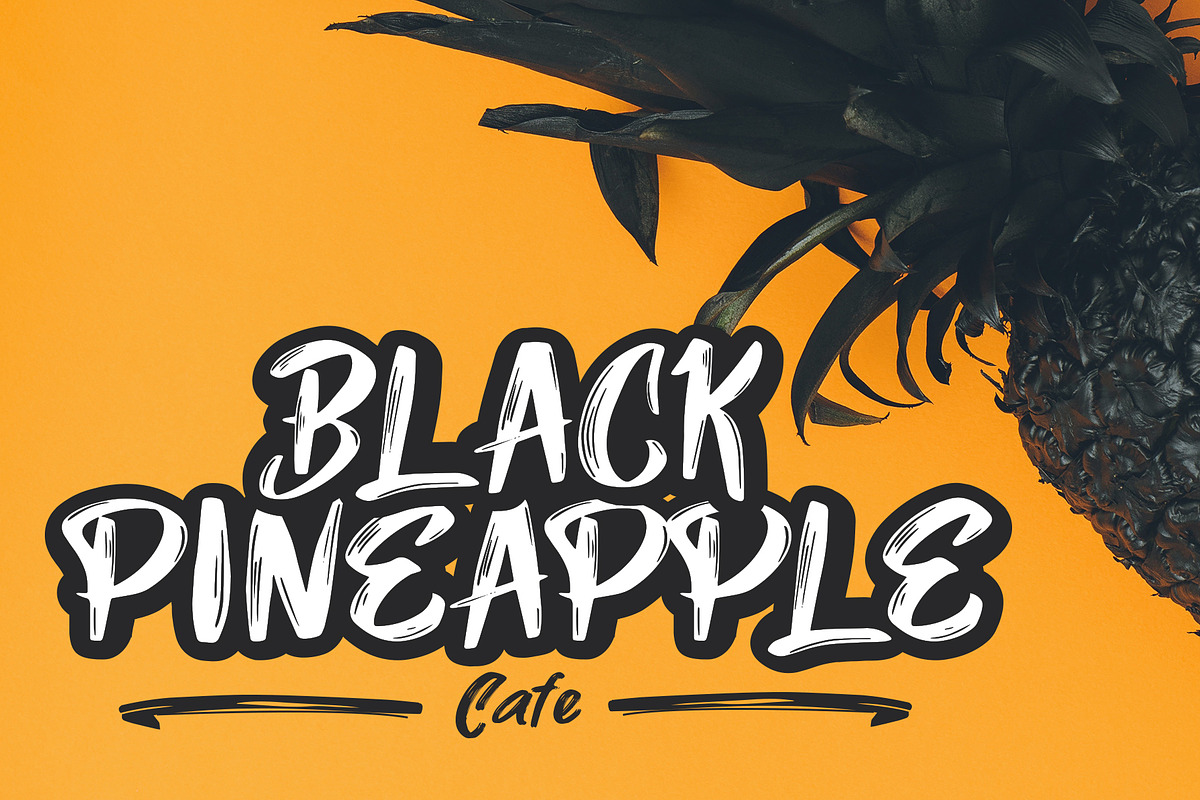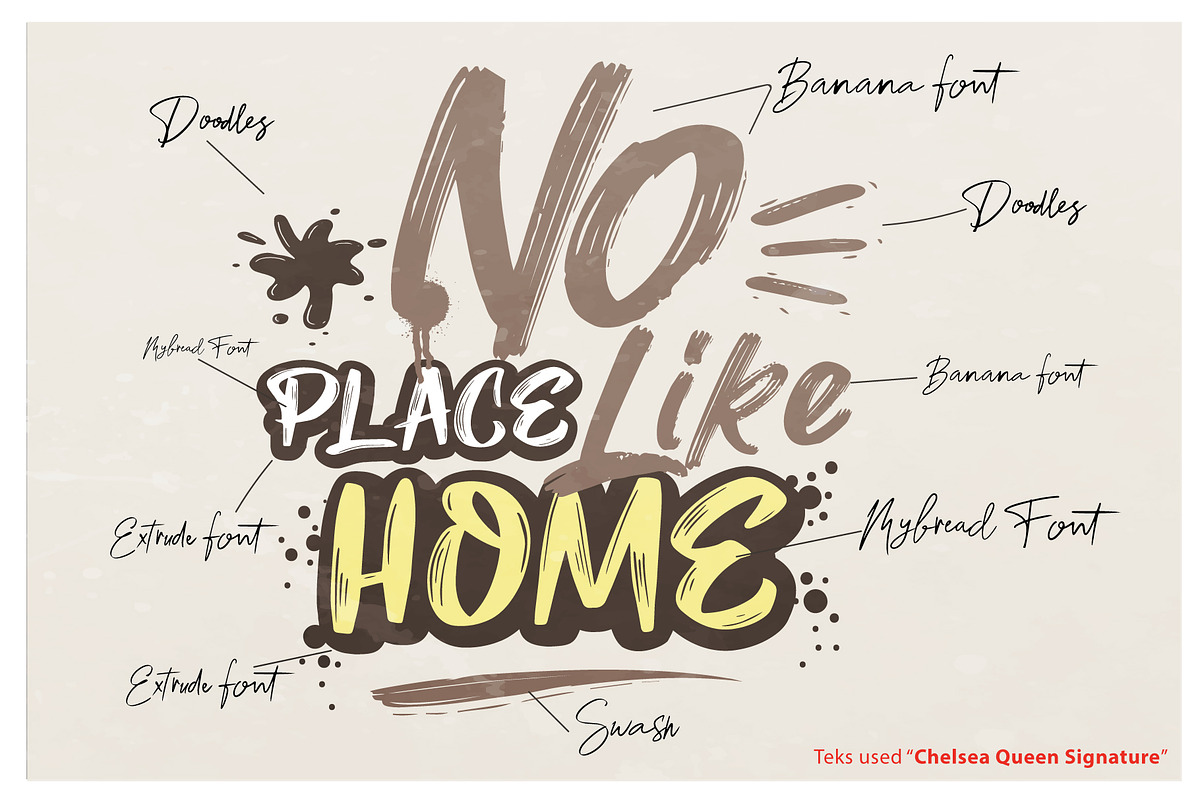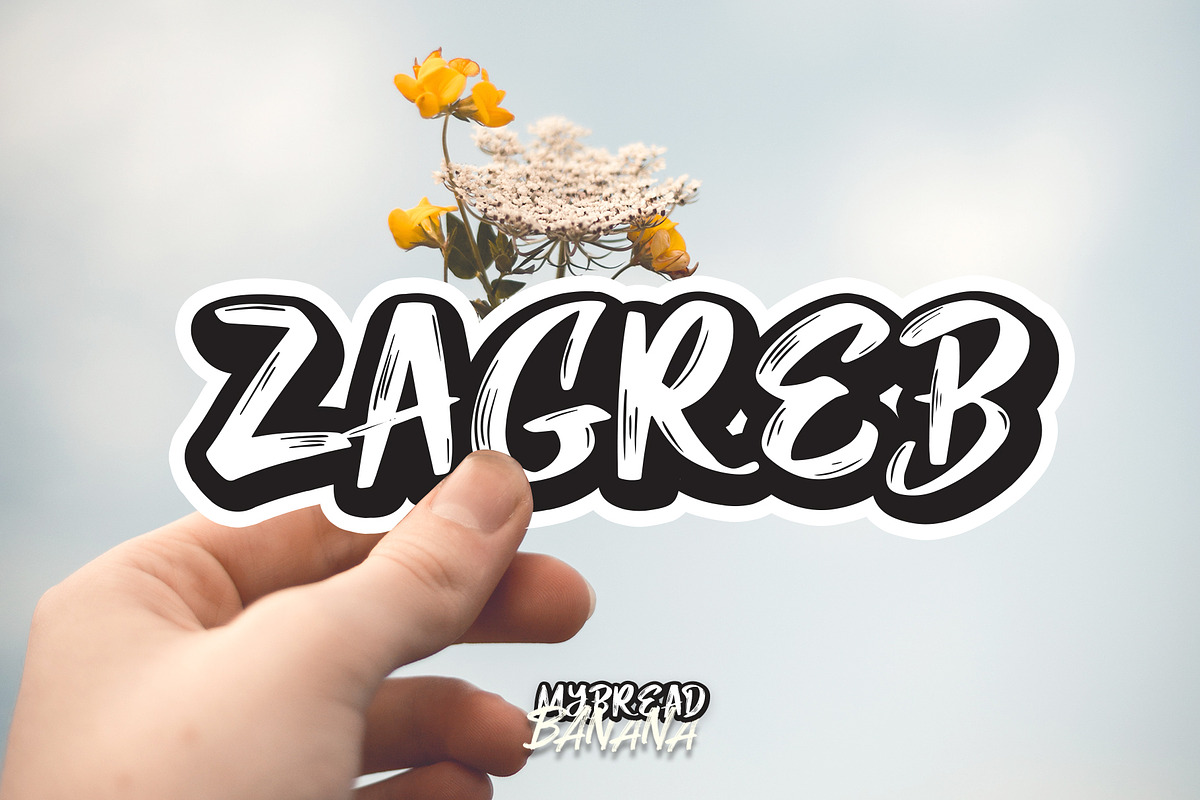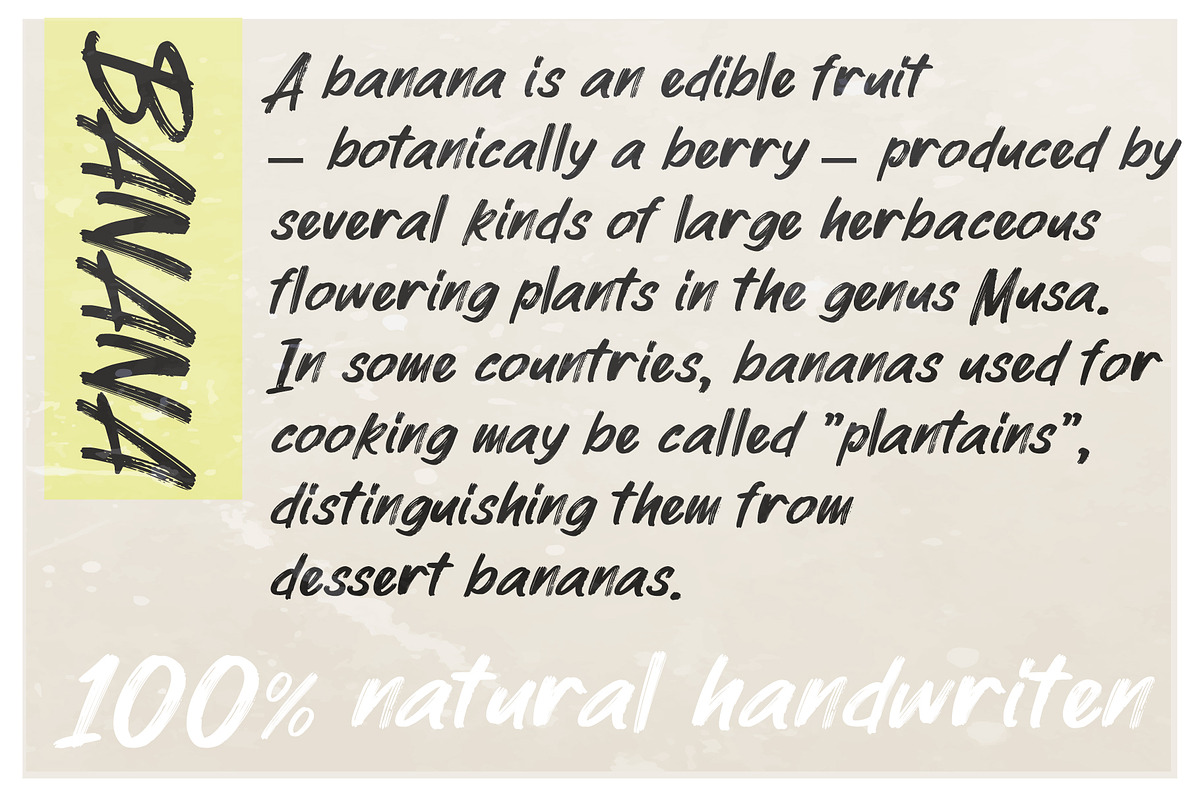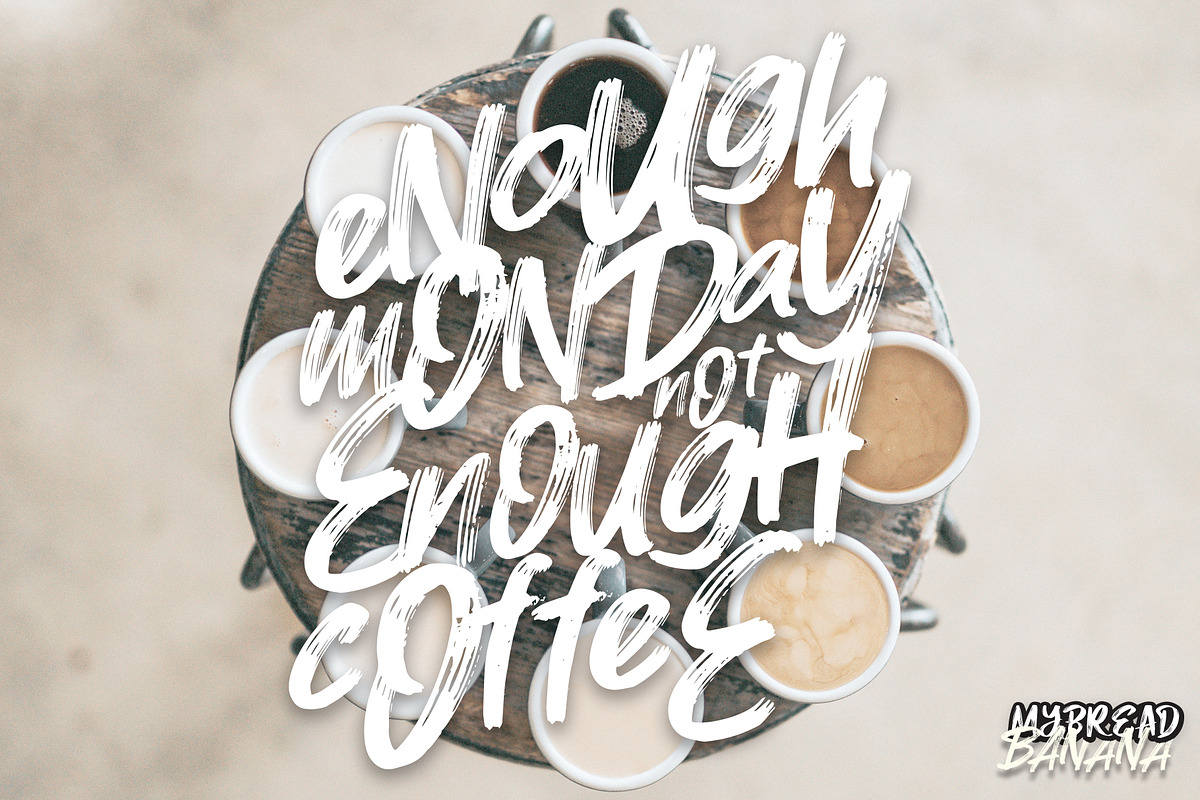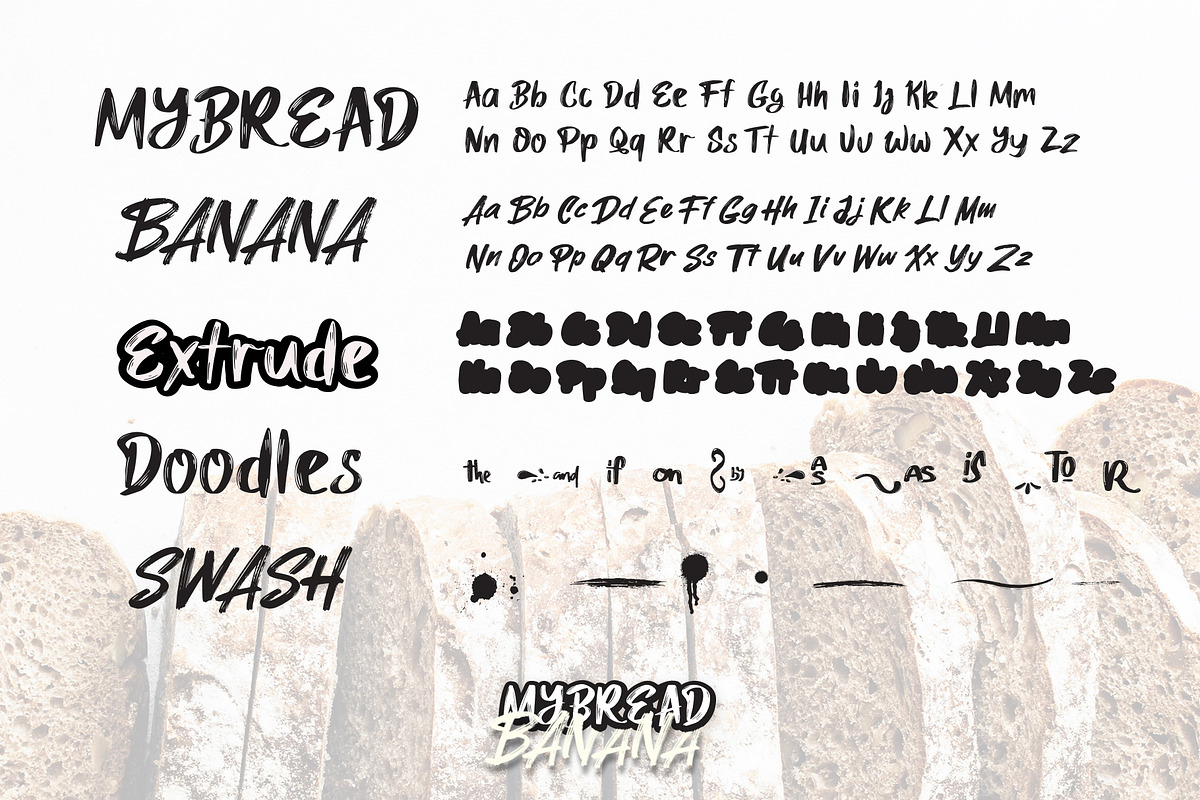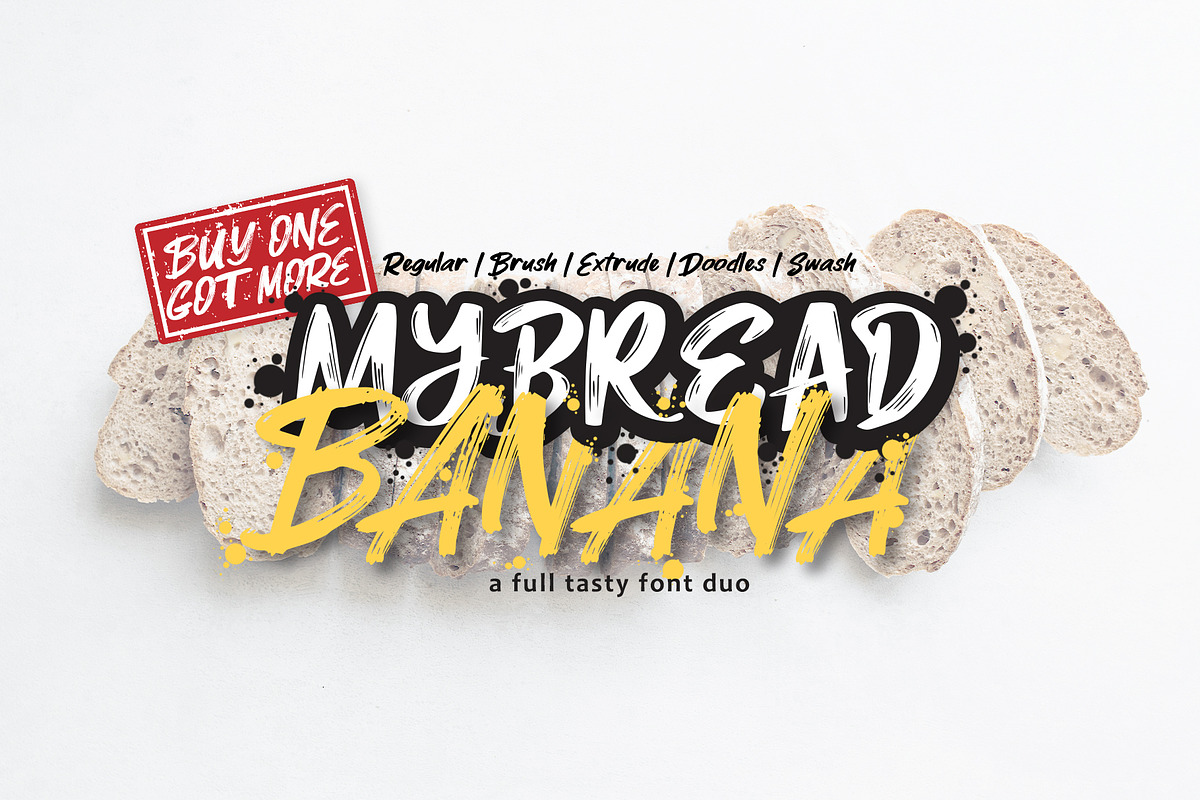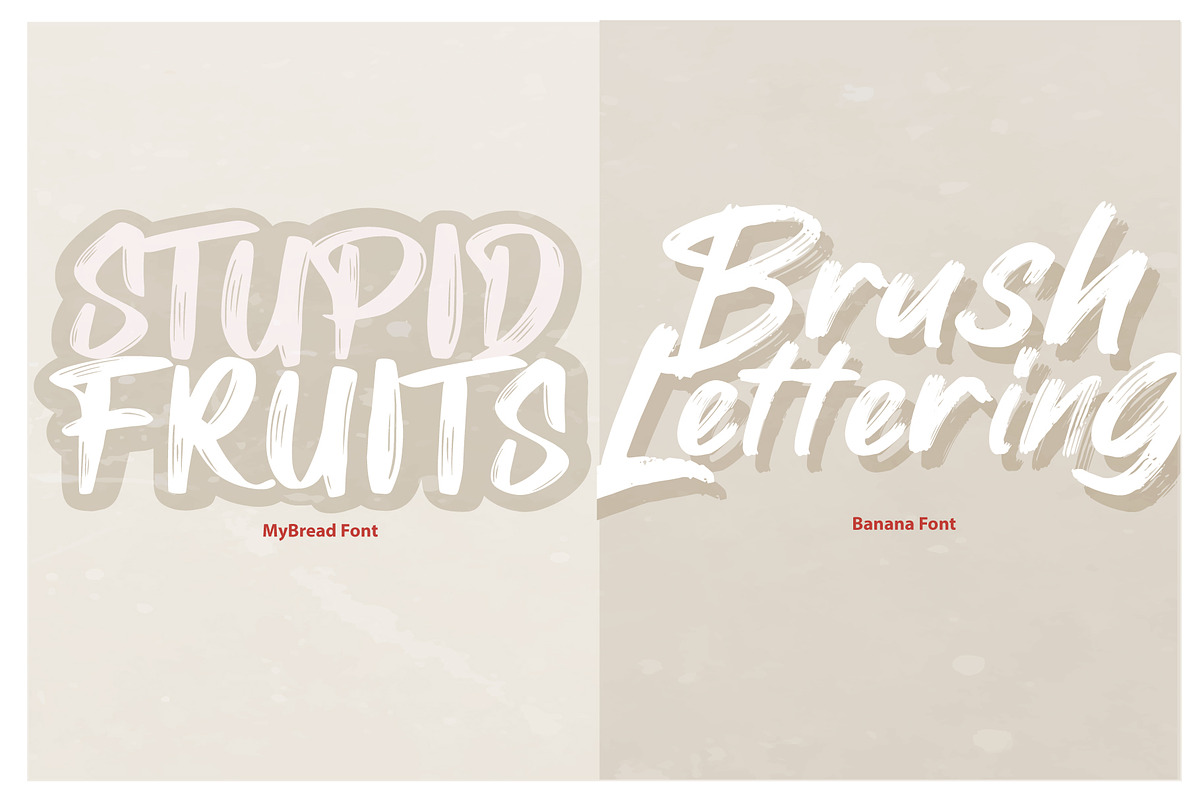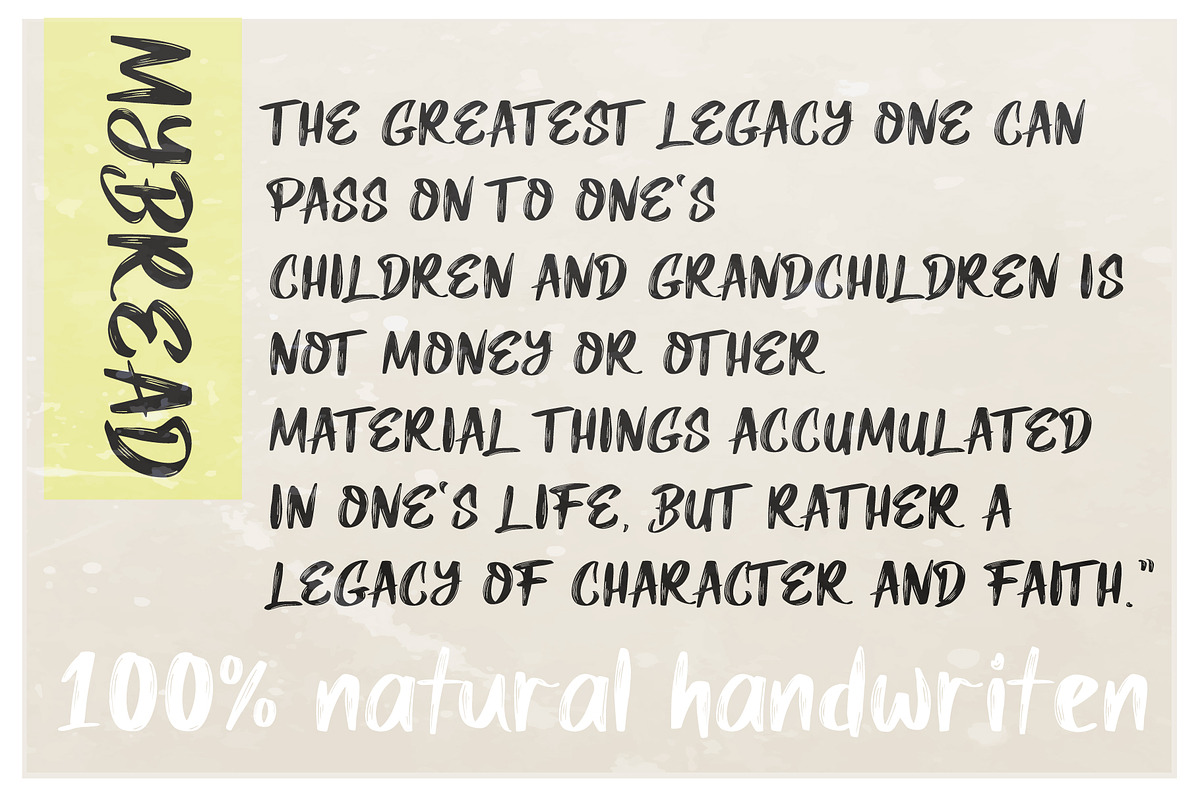
MyBread Banana Font Duo
Mybread Banana is a unique font Duo, you can get 5 different font style Regular | Brush | Extrude | Doodles | Swash.
Mybread font is semi script and cartoon font can perfect combination with extrude (Layer font). Banana Font is a paint brush font make powerful and bold for your design. All this font is very suitable for use Logo, Funfact, Fashion, Poster, Menu, Invitation and there is still much that can be done with this font.